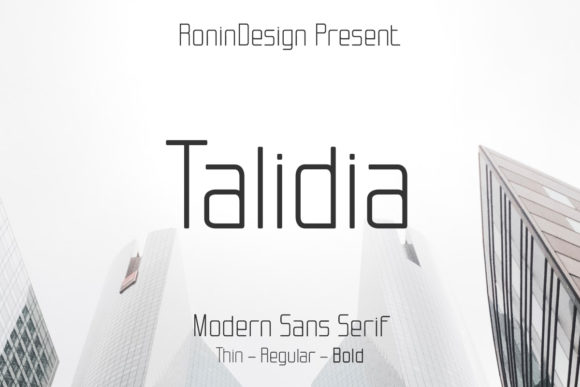
Unleash the Enchanting Charm of Talidia Font: Your Gateway to Unforgettable Designs
Embark on a typographic odyssey with Talidia Font, a captivating sans serif typeface that exudes class, sophistication, and timeless appeal. Created by the visionary RoninDesign, Talidia takes the limelight with its tall, thin stature, casting an aura of elegance in every letterform it graces.
Step into a realm of creativity where your designs take center stage, complemented by Talidia's inherent charm. Witness the transformation as ordinary words metamorphose into captivating narratives, leaving a lasting impression that resonates with your audience. From posters that demand attention to branding that speaks volumes, Talidia elevates your creations to new heights.
Imagine the allure of a poster adorned with Talidia's slender strokes, commanding attention from across the room. Its tall stature lends an air of authority, while its thin lines dance with grace, inviting readers to delve into the depths of your message. Let Talidia be your visual storyteller, captivating audiences with its timeless beauty.
In the realm of branding, Talidia weaves a tapestry of sophistication and allure. Its clean lines and crisp edges lend a touch of modernity, while its inherent elegance exudes a sense of luxury. Envision your brand adorned with Talidia's charm, a visual masterpiece that reflects your dedication to excellence.
Dare to embrace the power of Talidia Font, a font that transcends the ordinary and opens the door to a world of captivating designs. Let its tall, thin strokes become the brushstrokes of your creative genius, painting a picture of elegance and sophistication. Experience the allure of Talidia today and elevate your designs to the realm of the extraordinary.